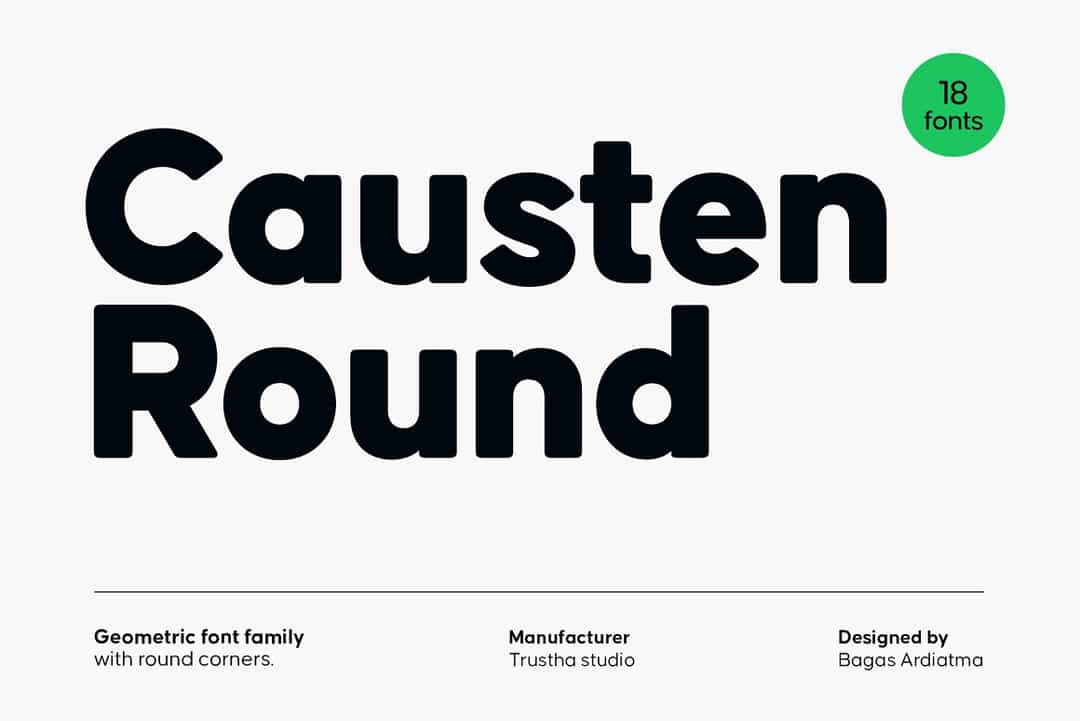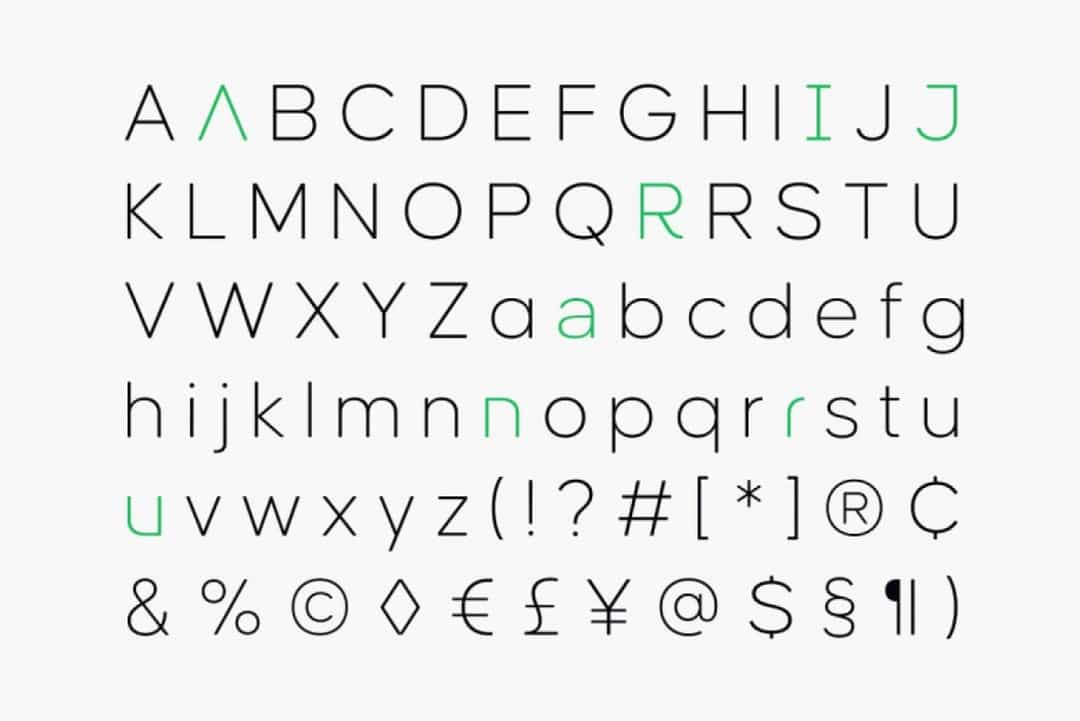
Causten Round is an elegant geometric sans-serif font family with round corners that maintains rationality in each type. Use of this font keeps eye clarity at an optimal level and balance is maintained throughout any design, creating an elegant and perfect aesthetic.